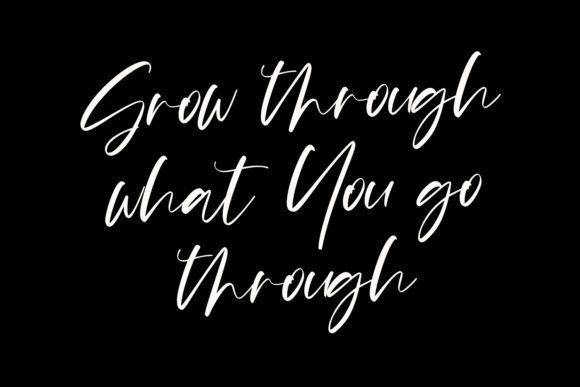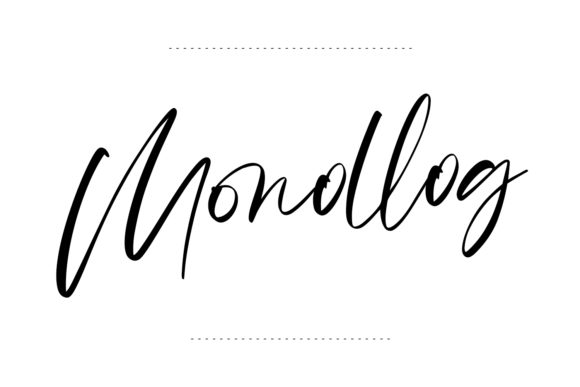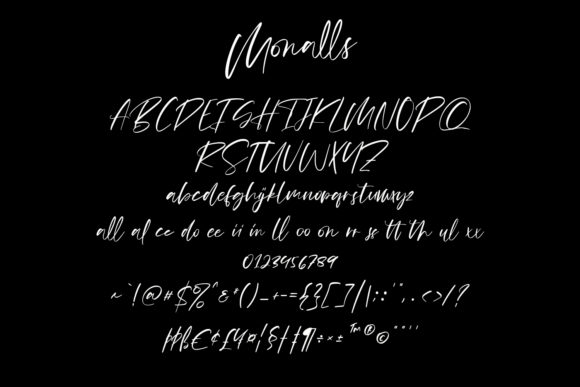
Introduction to Monalls Font
Have you ever found yourself staring at a blank canvas, waiting for inspiration to strike? That’s exactly where I was when I stumbled upon the Monalls Font. Its elegant, handwritten script instantly captured my attention, and I knew I had to dive in and explore its possibilities. The moment I started experimenting with Monalls Font, I was hooked – its unique charm and versatility made it the perfect fit for a wide range of creative projects.
As designers, we’re always on the lookout for high-quality design resources that can elevate our work to the next level. That’s where Monalls Font comes in – a beautifully crafted, magical handwritten font that’s sure to add a touch of sophistication to any design project. Whether you’re working on branding, headings, wedding designs, or invitations, Monalls Font is an invaluable asset that’s sure to impress.
What sets Monalls Font apart is its exceptional quality and flexibility. With its transparent background, it’s easy to layer and manipulate, making it perfect for designers who want to add a personal touch to their work. Plus, it’s available for free download, making it an accessible resource for designers of all levels. Whether you’re a seasoned pro or just starting out, Monalls Font is a valuable addition to your design arsenal.
Key Features of Monalls Font
- High-quality design resource suitable for various creative projects, including digital art and graphic design.
- Monalls Font offers a transparent background, making it ideal for use on images and backgrounds with varying opacity levels.
- Features a high-resolution design, with a minimum resolution of 300 DPI, ensuring crisp and clear text display.
- Monalls Font is designed to be highly versatile, with a wide range of applications, from body text to headlines and titles.
Honest Review: Monalls Font
I recently stumbled upon the Monalls Font while searching for a unique design resource for my creative project. As a designer, I was excited to give it a try.
The Monalls Font has a beautiful, modern aesthetic that would be perfect for a variety of design applications, from logos to web pages. One of the standout features of this font is its high quality and clarity, even at larger font sizes.
- ✨ High quality and clear font characters
- ✨ Supports a wide range of languages
- ⚠️ The font does not include any bold or italic styles, which may be a limitation for designers who need more versatility
- ⚠️ The transparent background option may not be suitable for all design applications
Overall, I’m impressed with the Monalls Font and would definitely recommend it to designers looking for a high-quality, modern font. With a little creativity, this font can be a valuable addition to any design resource library.
The Monalls Font is a versatile design resource that can be used in various creative projects, such as logos, branding materials, and infographics. Its high-quality design and transparent background make it an ideal choice for designers who want to create visually appealing and professional-looking designs.
Tips for Getting the Most Out of Monalls Font
To get the most out of the Monalls Font, experiment with different font sizes, colors, and alignments to find the perfect combination for your design. You can also use the font in combination with other design resources, such as images and graphics, to create a cohesive and engaging visual identity.